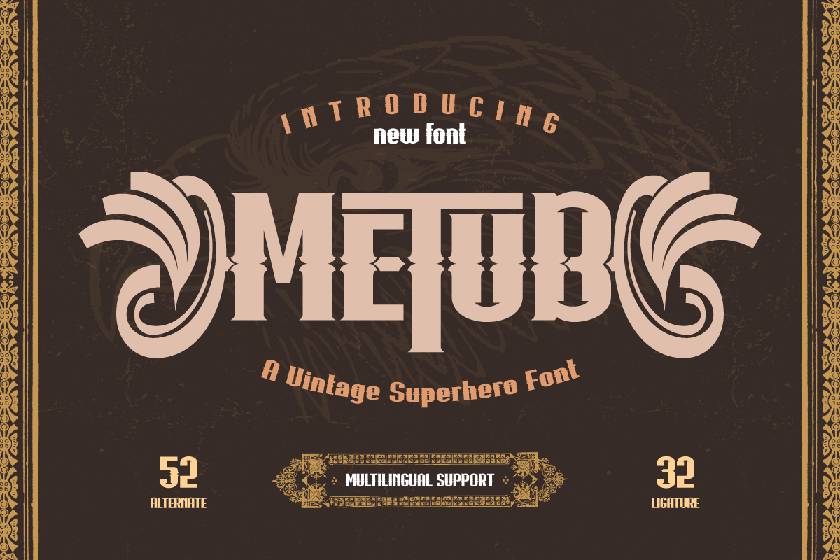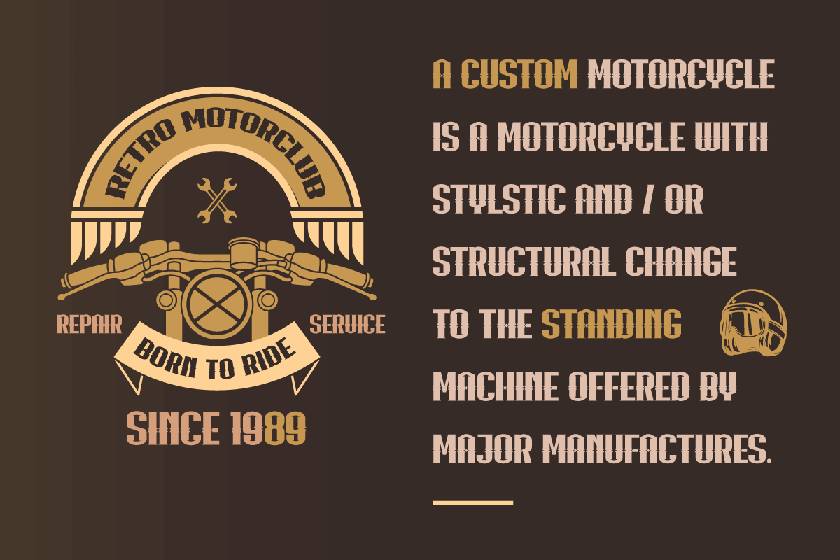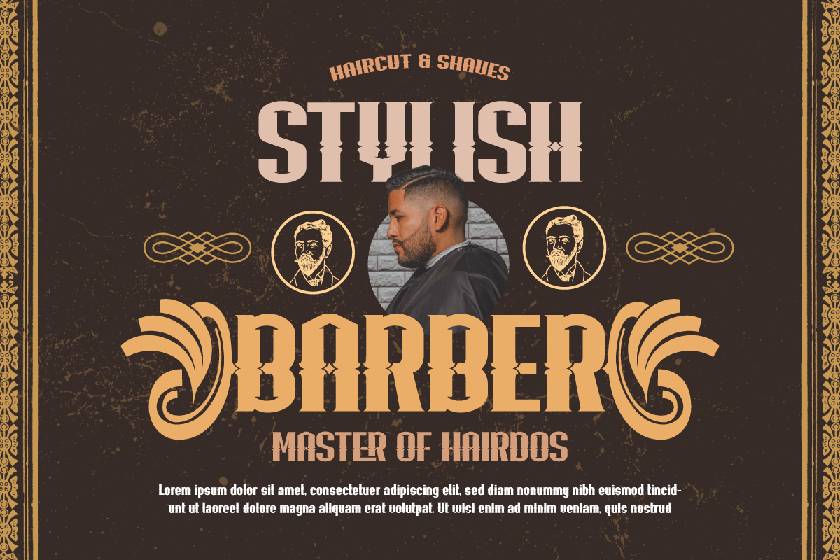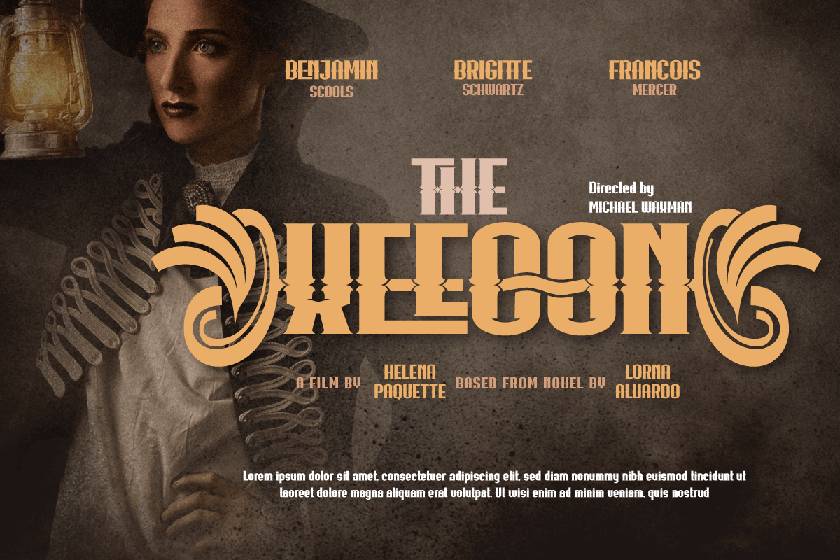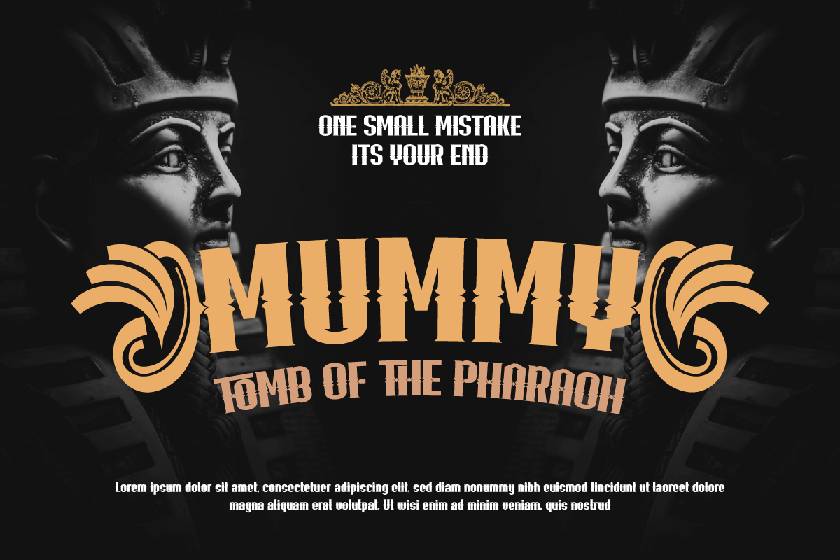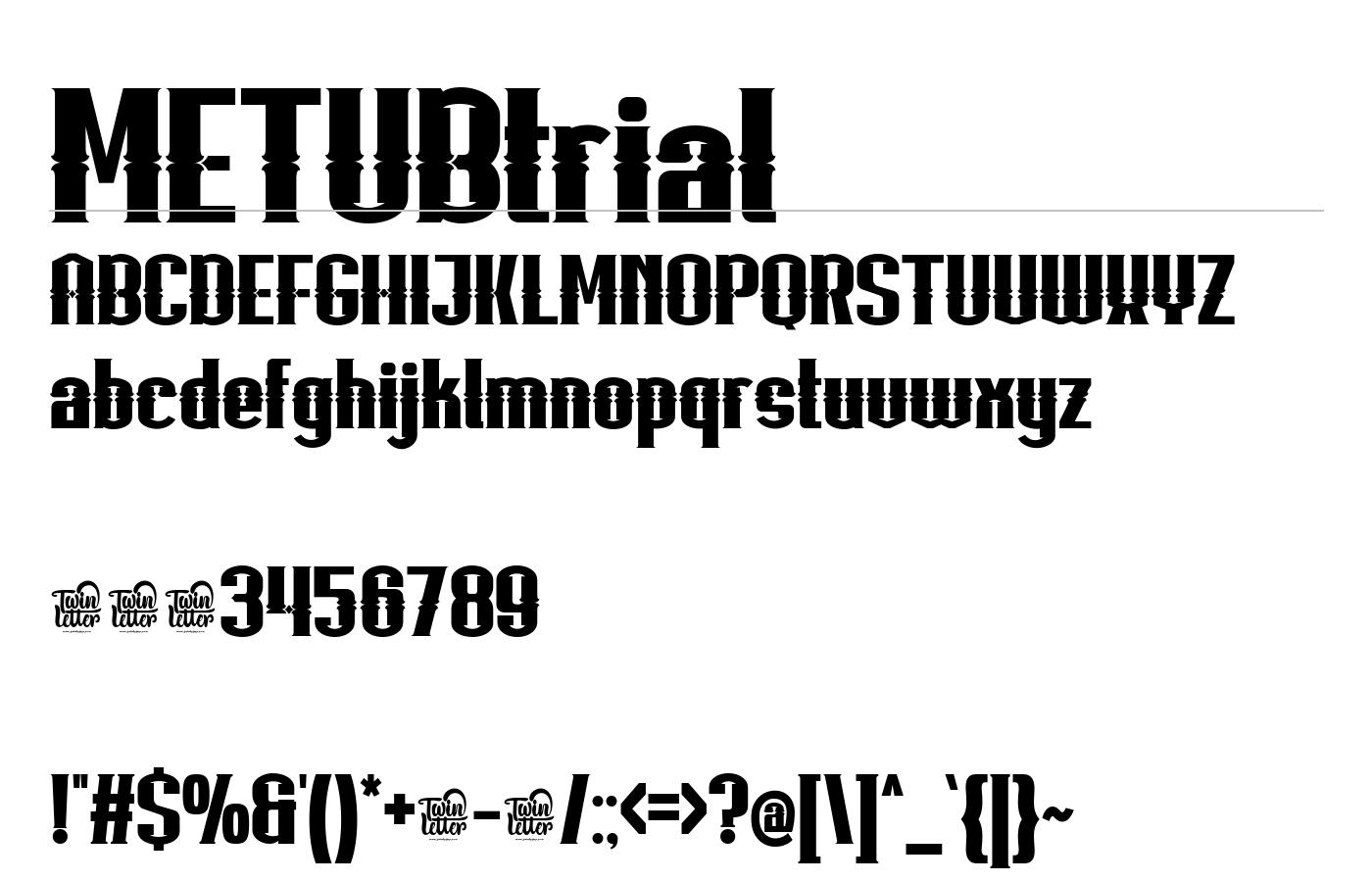
Metub is a bold, condensed serif font with sharp, high-contrast strokes and distinctive bracketed serifs that give it a strong, vintage industrial feel. Its unique letterforms and tall x-height make it perfect for impactful headlines, logos, and packaging that need a sense of classic strength and character. This font works best in designs aiming for a striking, authoritative, and slightly historical mood.
Metub Font
About Metub Font
| Font family | Metub Font |
| Release date | 2023-02-10 |
| Designer | Ojak |